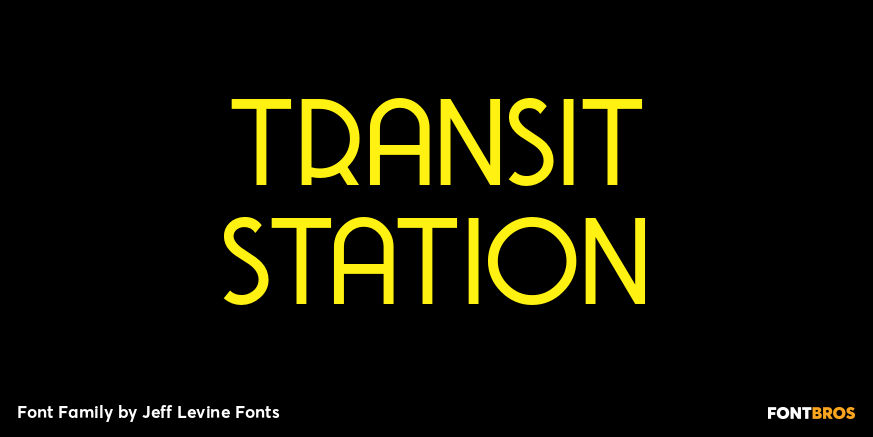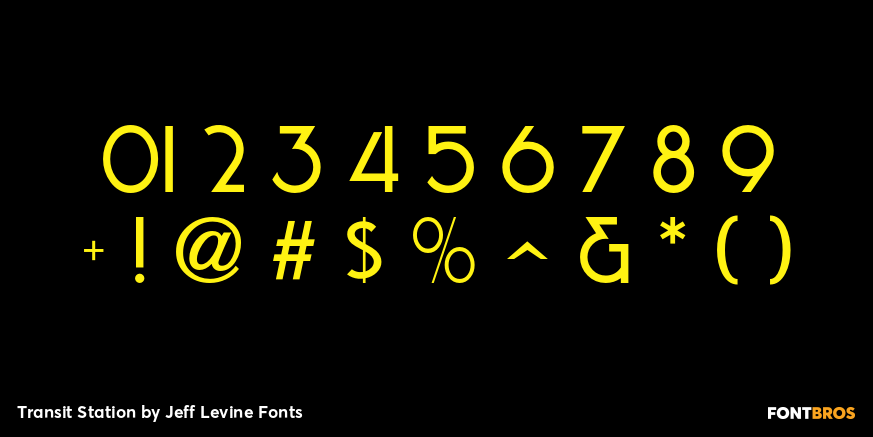
Transit Station
The thin and stylish Art Deco lettering of a neon sign above the Greyhound bus terminal entrance in a 1930s New York City photo inspired Transit Station JNL, which is available in both regular and oblique versions.
Transit Station by Jeff Levine Fonts